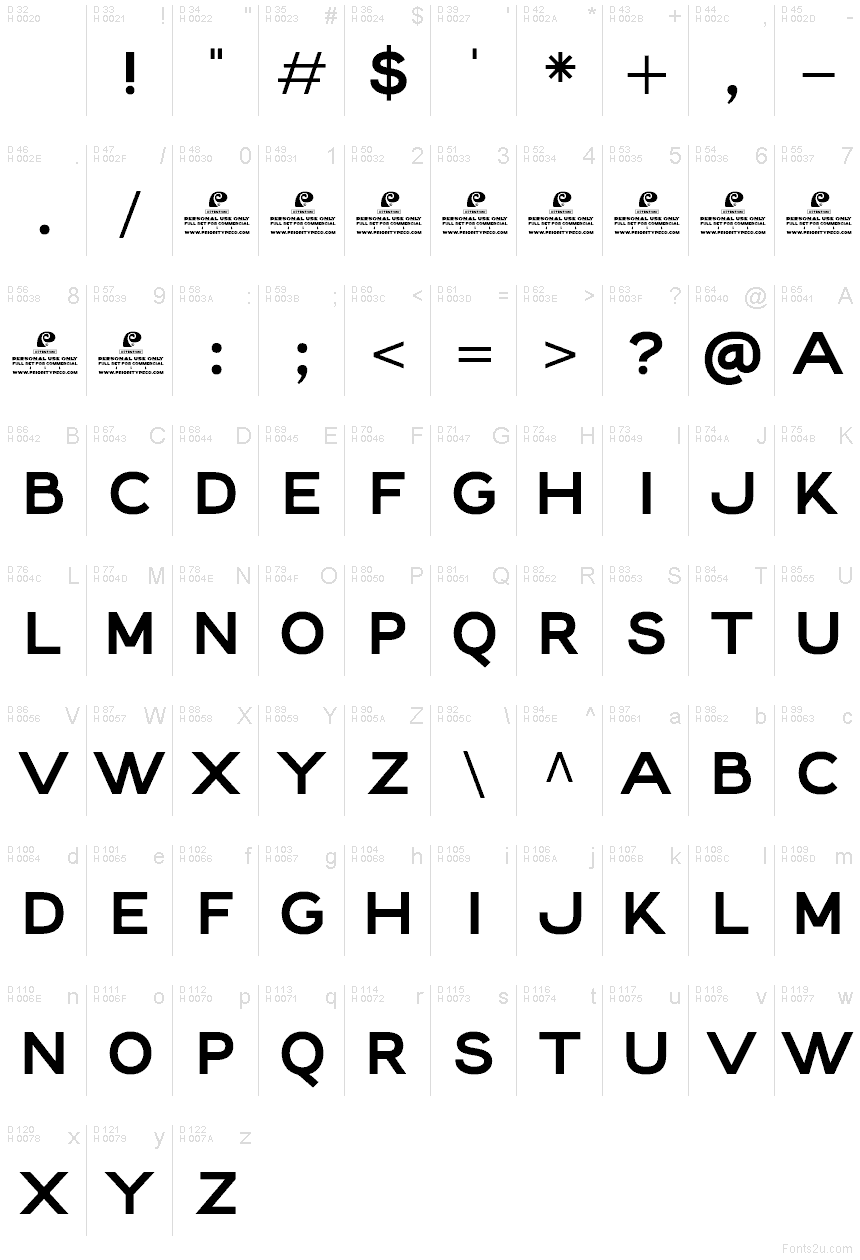
Loede DEMO Extra Bold
Loede Extra Bold font by Prioritype Co is a free sans serif typeface that solves a familiar gap: muscle without meanness. Its blocky forms are softened by generous, circular counters, so headlines hit hard but still feel approachable. Letters sit evenly with crisp, square cuts, giving you dense color on the page without clogging or shouting. It’s part of the Loede font family, bringing a consistent voice across projects.
Using Loede Extra Bold, you can anchor branding, posters, packaging, event flyers, sports graphics, social promos, and bold UI headers. The wide bowls and steady rhythm read fast at a glance, while the compact spacing keeps layouts tight and tidy. This free font shines on big words and short phrases; for longer text, pair it with a simple companion from the Loede family or a calm humanist sans set a few sizes smaller.